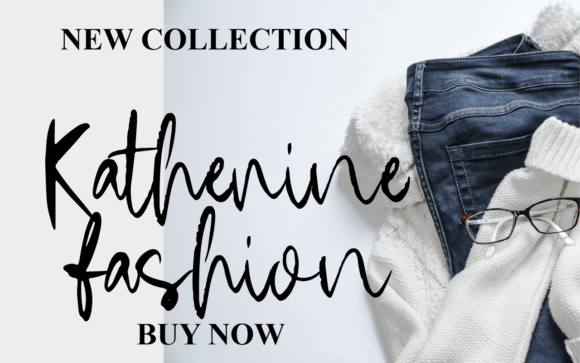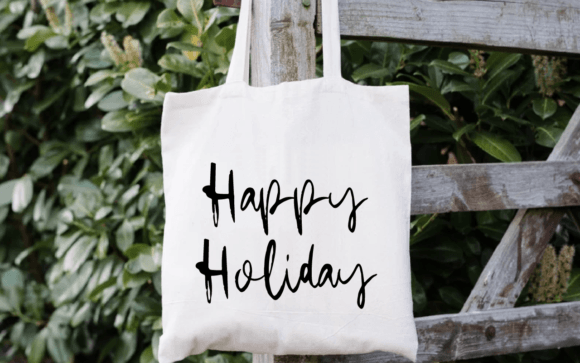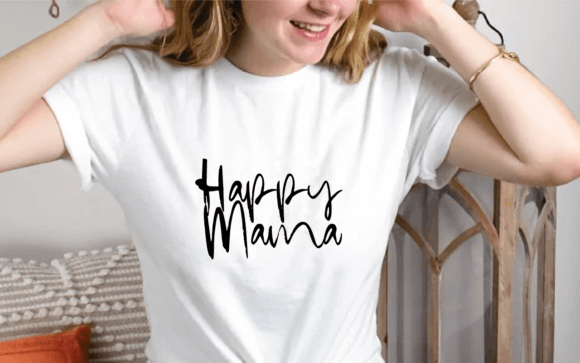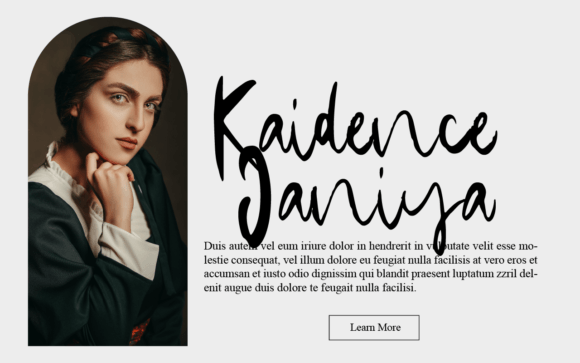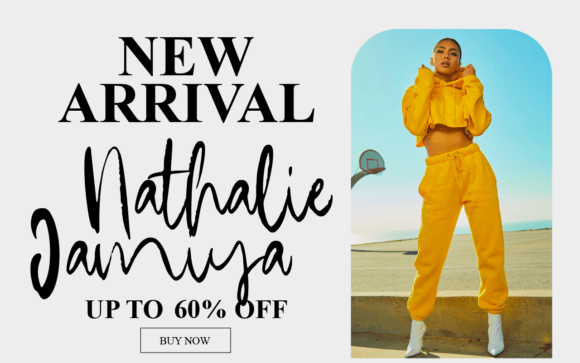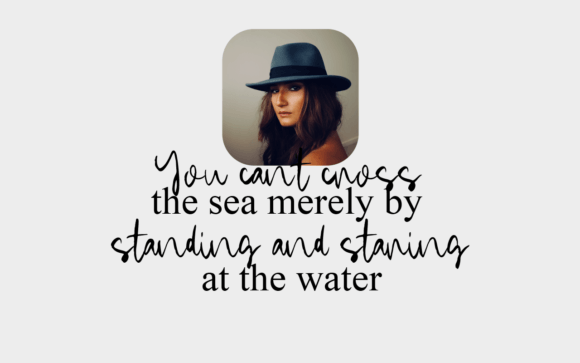
Hanyfah Font: Elevate Your Designs with Elegance and Sophistication
In the world of typography, a font can make or break a design. For designers and crafters looking to add a touch of elegance and sophistication to their creations, Hanyfah Font is an exceptional choice. This dazzling script font is meticulously crafted with high attention to detail, making it a valuable asset to any font library.
The Beauty of Hanyfah Font
Hanyfah Font is a stunning script font that boasts a unique and captivating style. Its neat and detailed design ensures that it can be used for a wide range of applications, from creative projects to commercial endeavors. The font’s elegant appearance is sure to elevate any design, making it perfect for designers seeking to add a touch of sophistication to their work.
One of the standout features of Hanyfah Font is its versatility. Regardless of the topic or theme, this font can enhance any creation. Whether you’re working on a logo, brochure, or social media graphic, Hanyfah Font can add a level of elegance and refinement that will make your design stand out. Its adaptability makes it an excellent choice for designers who work on a variety of projects, from wedding invitations to business branding.
Key Features of Hanyfah Font
- Highly detailed design: Hanyfah Font is crafted with precision and attention to detail, ensuring a high-quality appearance in any design.
- Elegant and sophisticated style: The font’s script style exudes elegance and sophistication, making it perfect for designs that require a touch of refinement.
- Versatile: Hanyfah Font can be used for a wide range of applications, from creative projects to commercial endeavors.
- Easy to read: Despite its ornate design, Hanyfah Font is easy to read, making it suitable for body text and headlines.
Why Choose Hanyfah Font?
With so many fonts available, why choose Hanyfah Font? The answer lies in its unique combination of elegance, versatility, and attention to detail. Here are a few reasons why Hanyfah Font stands out:
- Unique style: Hanyfah Font offers a distinctive style that will set your designs apart from the rest.
- High-quality design: The font’s meticulous design ensures a high-quality appearance in any design.
- Time-saving: With Hanyfah Font, you can quickly and easily add a touch of elegance to your designs, saving you time and effort.
How to Use Hanyfah Font
Using Hanyfah Font is straightforward. Here are a few tips to get you started:
- Pair it with a sans-serif font: Combine Hanyfah Font with a sans-serif font for a striking contrast.
- Use it for headlines and titles: Hanyfah Font is perfect for headlines and titles, where its elegant style can shine.
- Experiment with colors and textures: Try pairing Hanyfah Font with different colors and textures to create a unique look.
In conclusion, Hanyfah Font is an exceptional script font that offers elegance, sophistication, and versatility. Its highly detailed design and adaptability make it an excellent choice for designers and crafters looking to elevate their designs. Whether you’re working on a creative project or commercial endeavor, Hanyfah Font is sure to be a valuable asset to your font library.